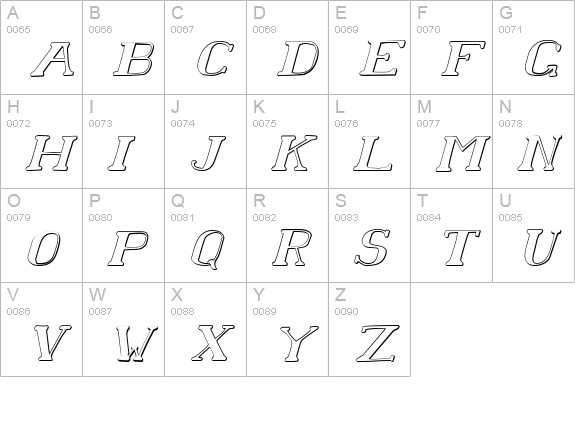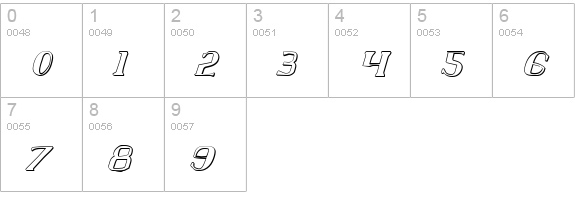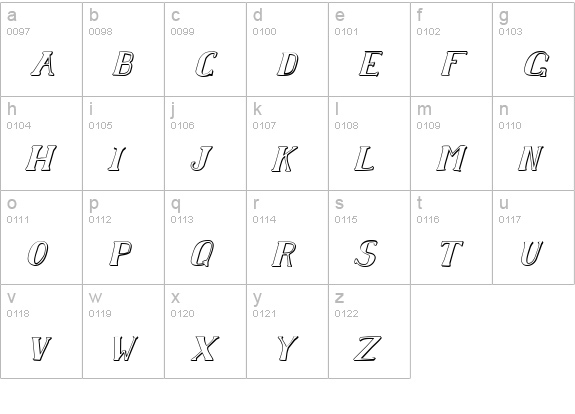
Chardin Doihle Shadow Italic is a distinctive, italic variant in the Chardin typeface family \xE2\x80\x94 well suited to design and typography projects.
Chardin Doihle Shadow Italic font is a stylish and elegant typeface that exudes sophistication and charm. Its sleek and slanted design adds a touch of modernity to any project, making it perfect for branding, invitations, and editorial designs. The delicate shadow effect creates a sense of depth and dimension, enhancing the overall visual appeal of the text. Best of all, Chardin Doihle Shadow Italic font is available for free download at FontsMarket.com. This means you can easily access this beautiful typeface and incorporate it into your creative endeavors without any cost. Whether you're a designer looking to add a unique flair to your projects or a content creator seeking a distinctive font for your work, Chardin Doihle Shadow Italic is sure to impress with its versatility and elegance. Download it today and elevate your designs with this captivating typeface.